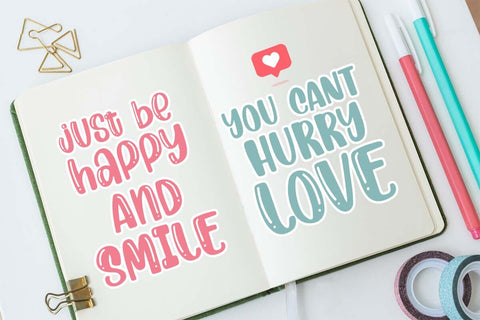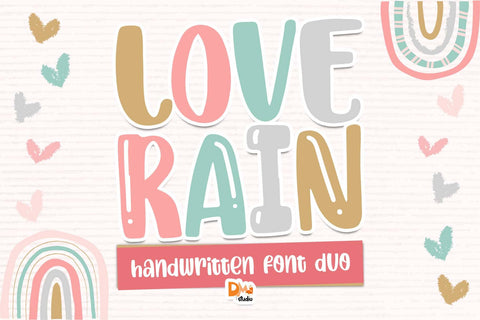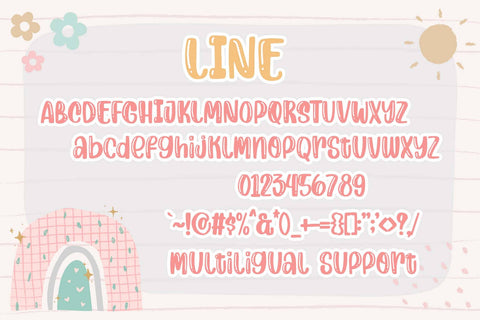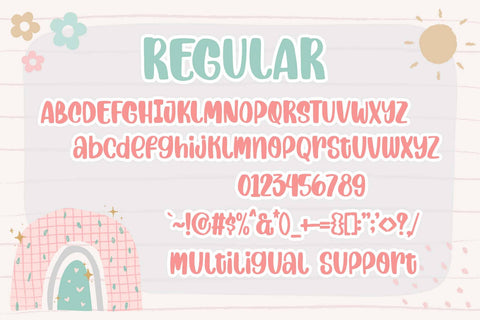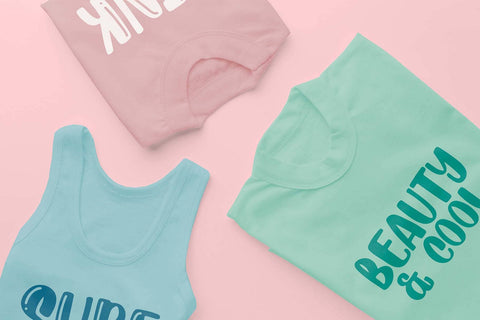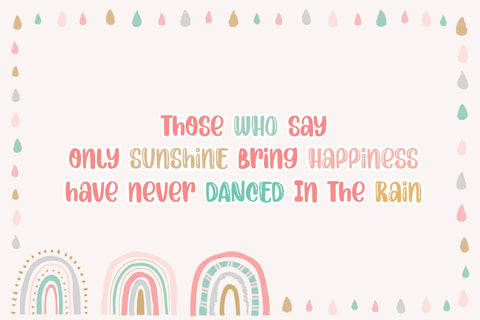
Love Rain Font
Love Rain Font Duo offers a harmonious blend of elegance and playfulness, making it perfect for various design projects. This versatile duo comprises a sophisticated script font and a charming sans serif font, providing endless creative possibilities. Whether you're designing wedding invitations, branding materials, or social media graphics, Love Rain Font Duo adds a touch of romance and whimsy to your work.
- Charming Sans Serif Font: The sans serif font brings a modern and playful vibe to your projects, perfectly complementing the script font.
- Versatile Usage: Suitable for a wide range of applications including wedding invitations, branding, packaging, posters, and more.
- Uppercase and Lowercase Letters: Both uppercase and lowercase letters are included for creative flexibility.